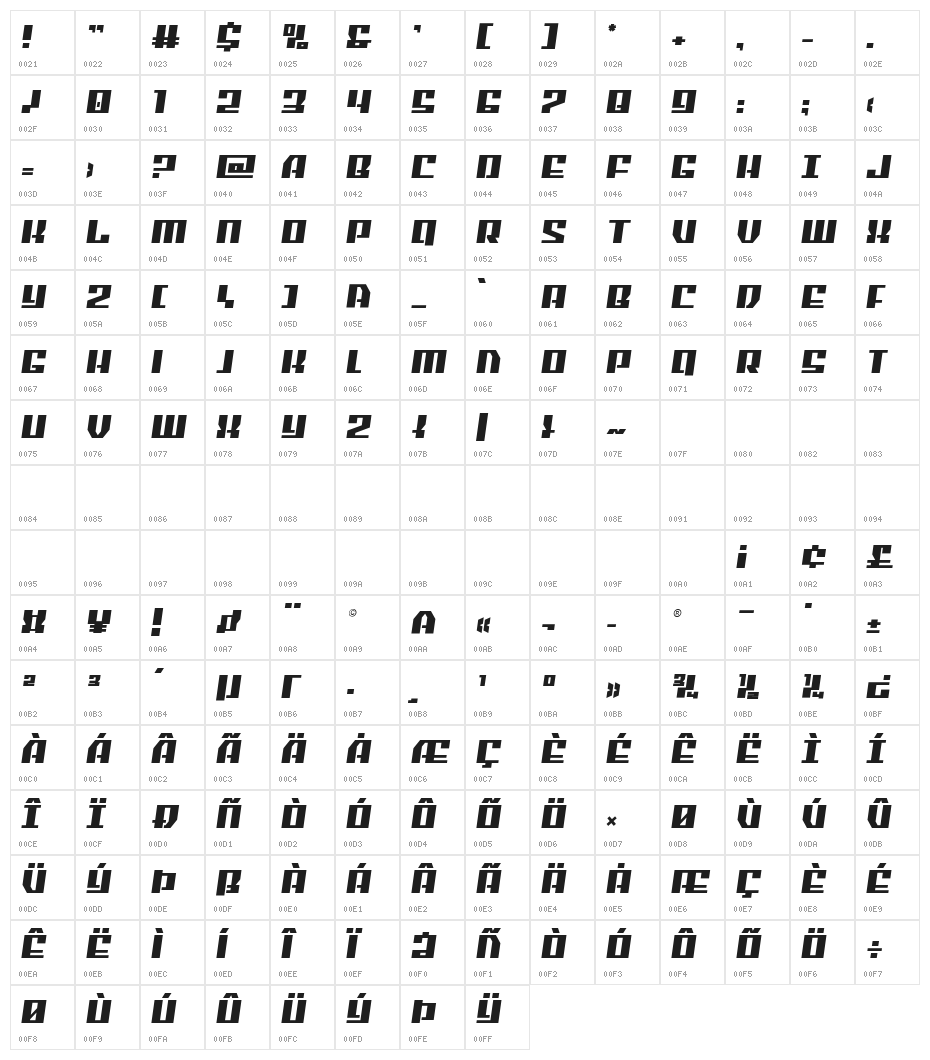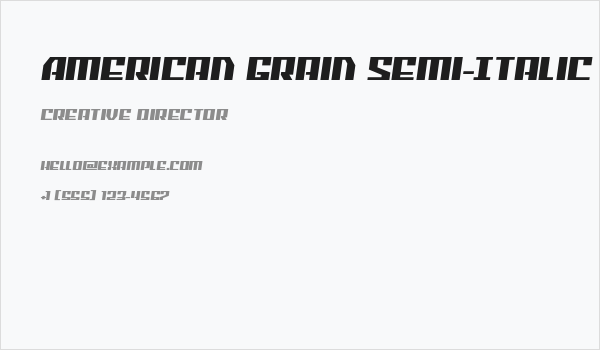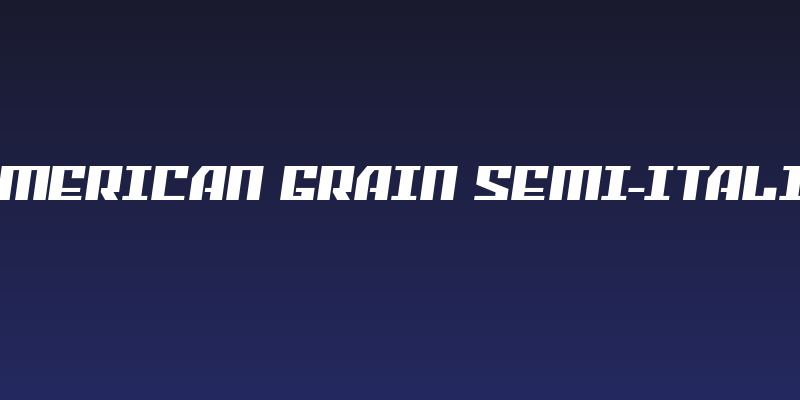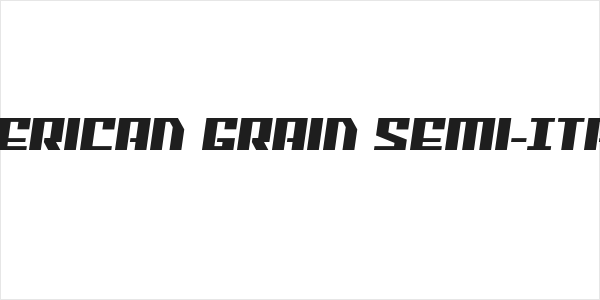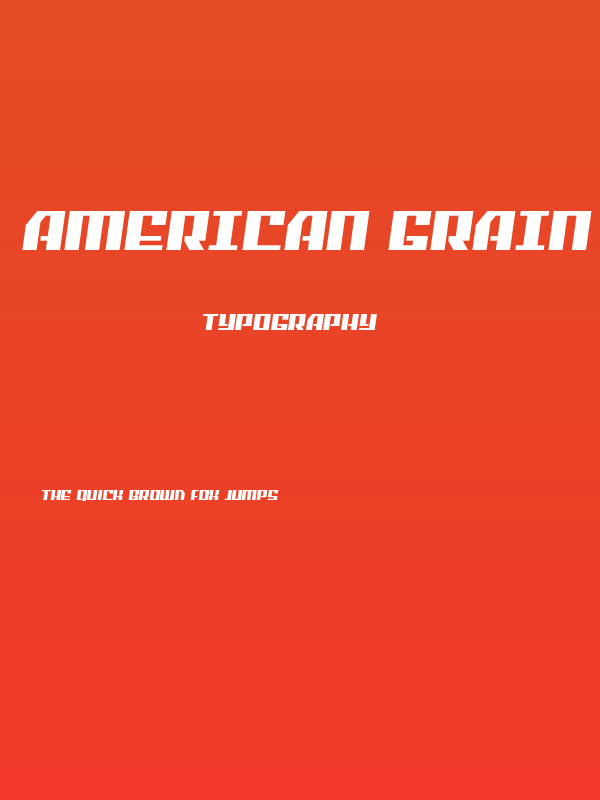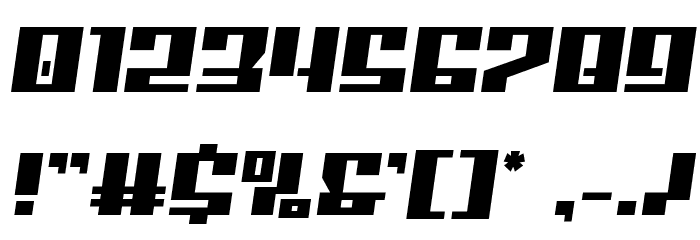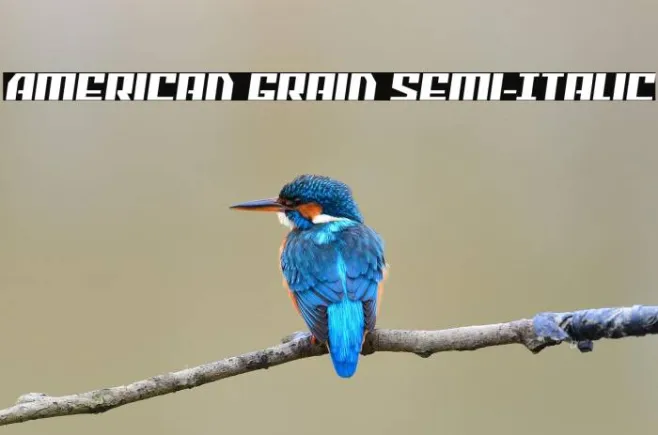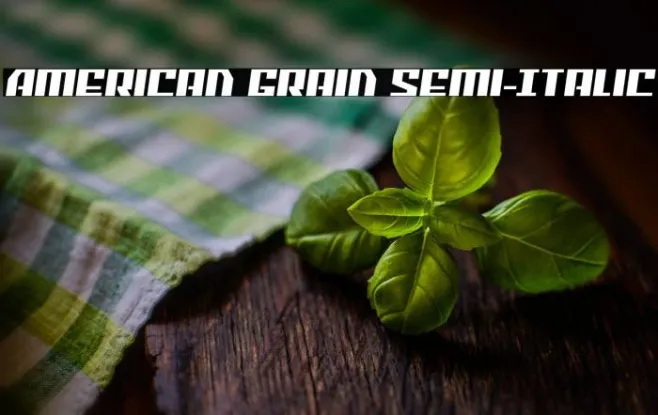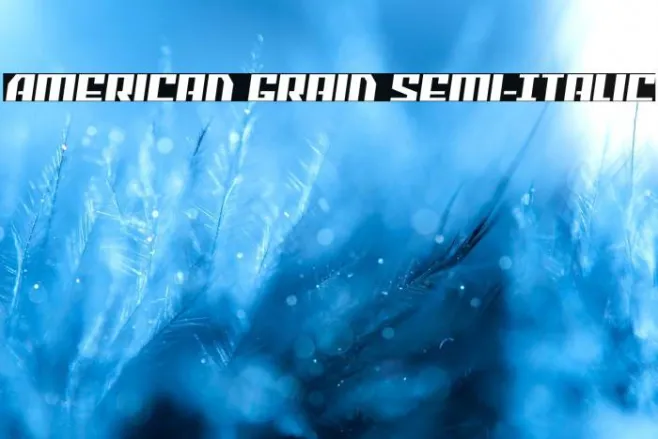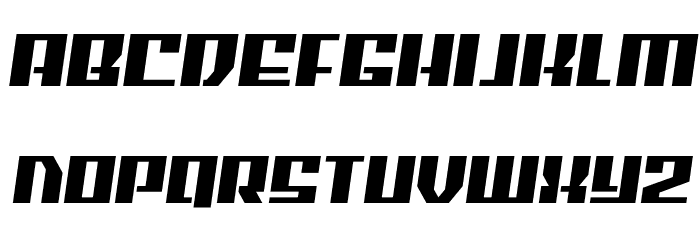
American Grain Semi-Italic Font
American Grain Semi-Italic Description
This font features a bold and dynamic style with a semi-italic slant, giving it a sense of movement and energy. The characters are blocky and geometric, with sharp angles and a strong presence. The uppercase and lowercase letters maintain a consistent design, enhancing readability while adding a unique flair. The numbers and special characters follow the same bold and angular design, making them stand out. This font is ideal for projects that require a modern and impactful look, such as sports branding, posters, and headlines.
| Proposed Projects | Ideal for sports branding, dynamic posters, and eye-catching headlines. |